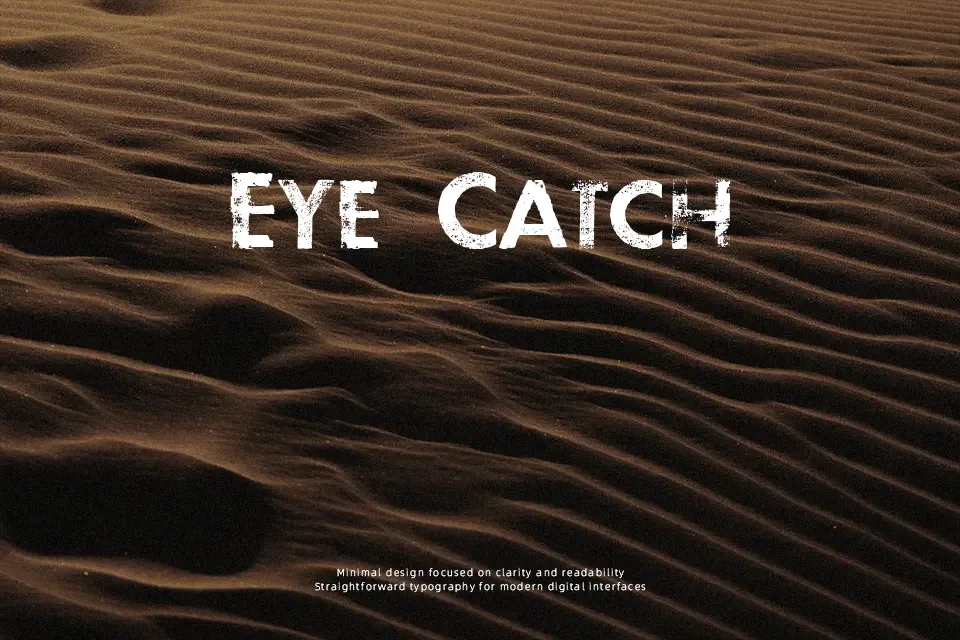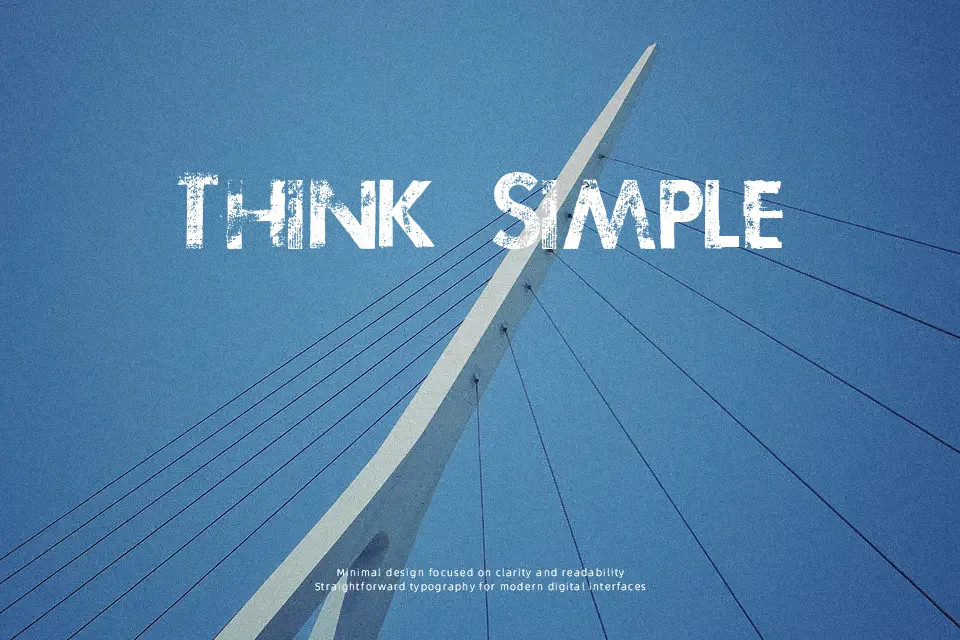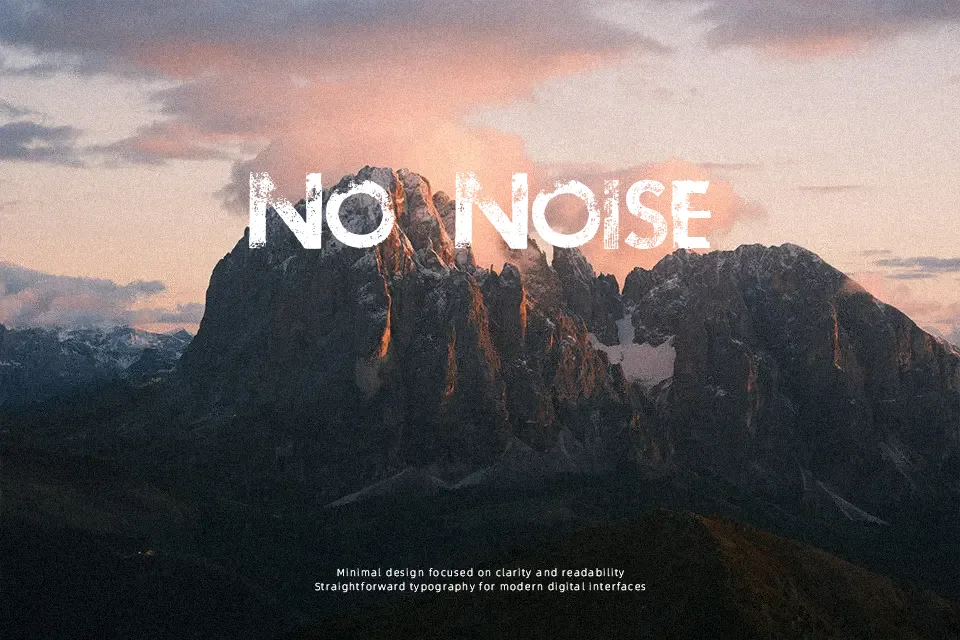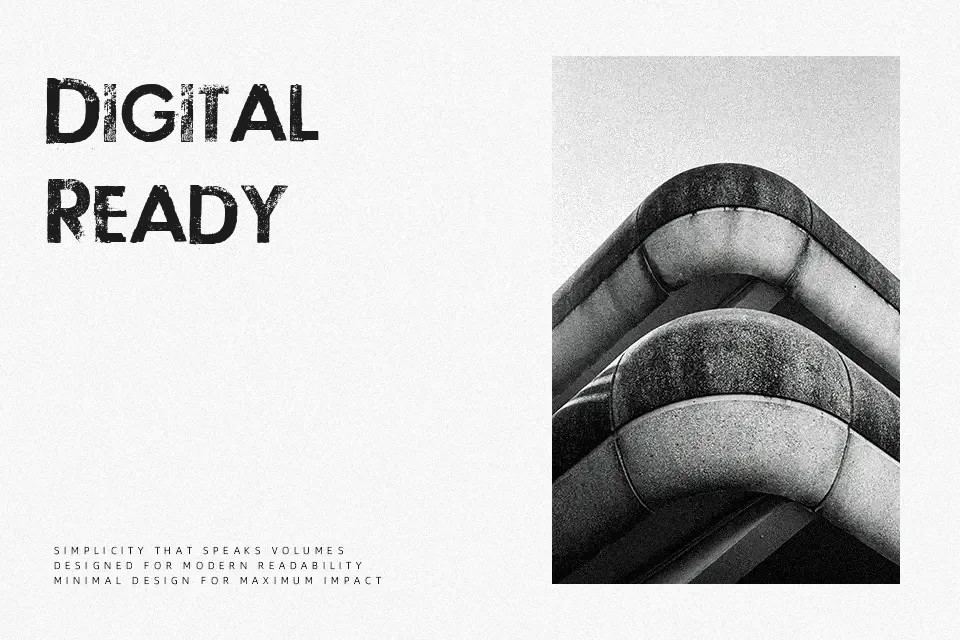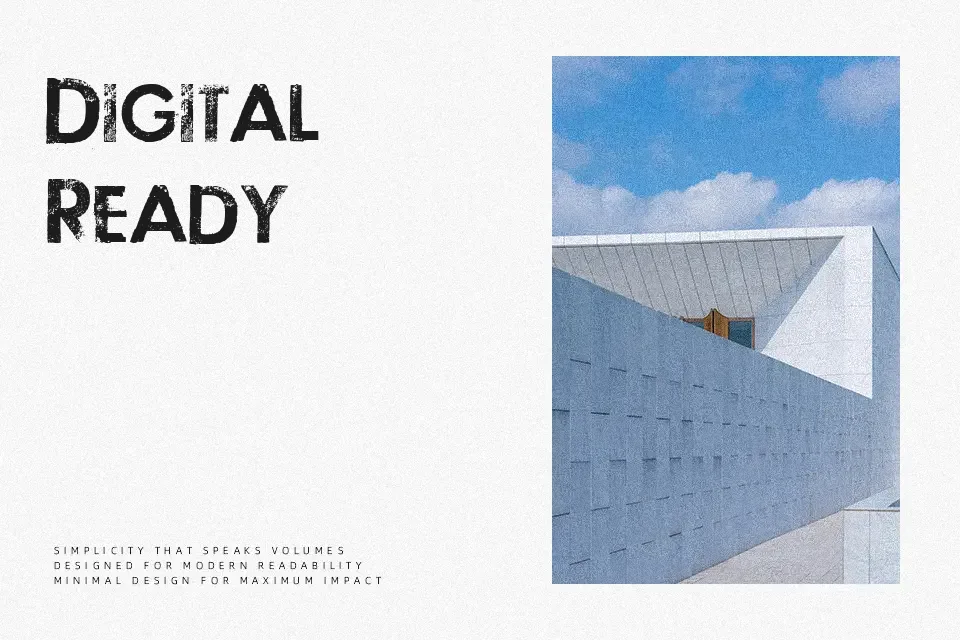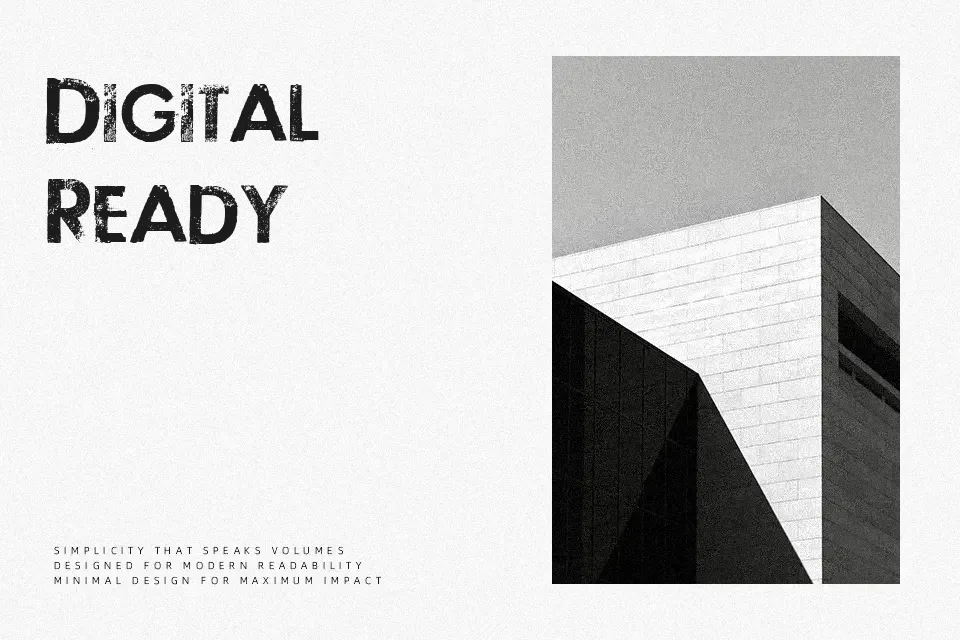
Tosca Zero Font
Tosca Zero Font showcases massive, blocky capital characters disrupted by pronounced cracks, chips, and fragmented cuts across every stroke. The sturdy proportions and heavy weight establish an imposing presence, while compact character spacing maintains visual cohesion across punchy titles. Substantial stroke thickness keeps the uppercase forms legible across large display applications such as horror film banners and apparel graphics. However, the intricate distressed textures diminish sharpness at smaller scales, rendering the typeface impractical for body copy or technical documentation. The fractured letterforms command immediate attention in dramatic headlines, though dense fragmentation inevitably reduces reading comfort across longer passages.
Best For: heavy metal album covers, action video game titles, horror movie posters, streetwear apparel graphics
Not Ideal For: continuous body text, small interface labels, corporate annual reports, technical documentation
Perfect for film, gaming, and headline, with a bold and decorative style.